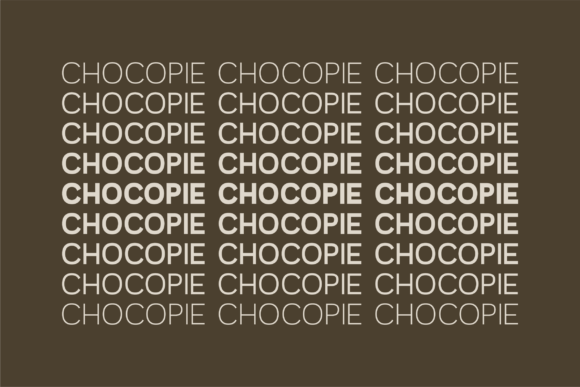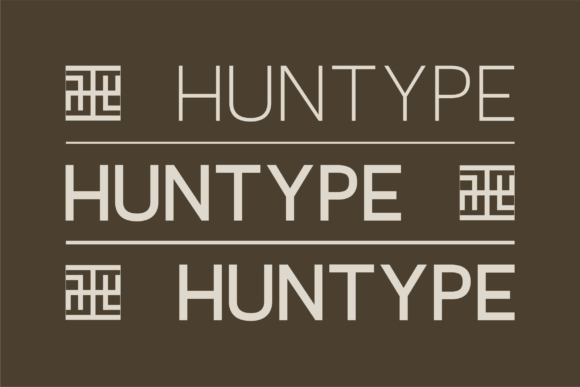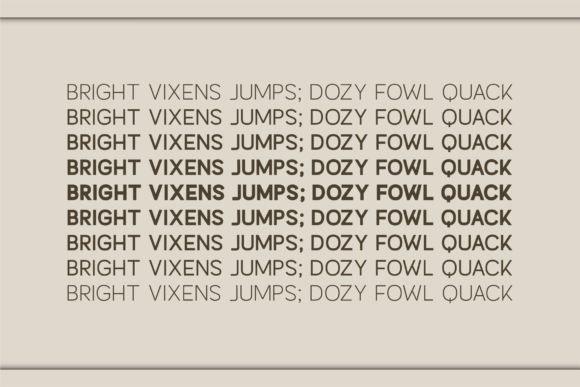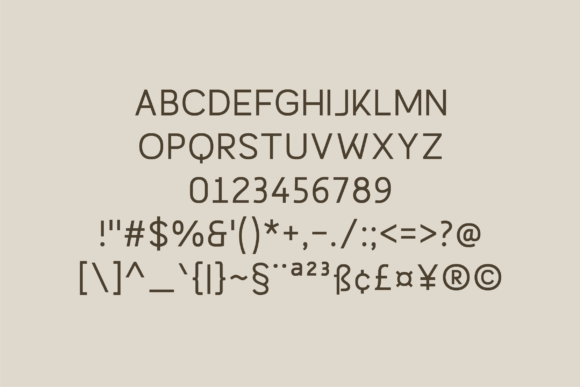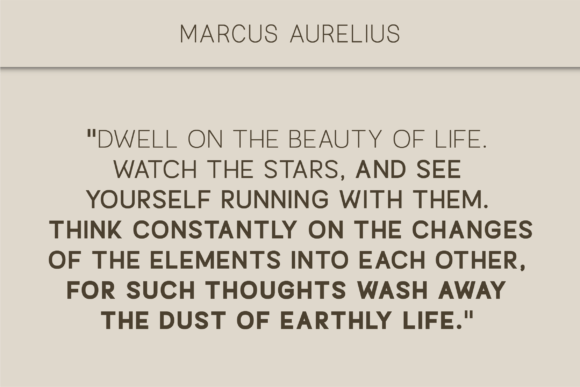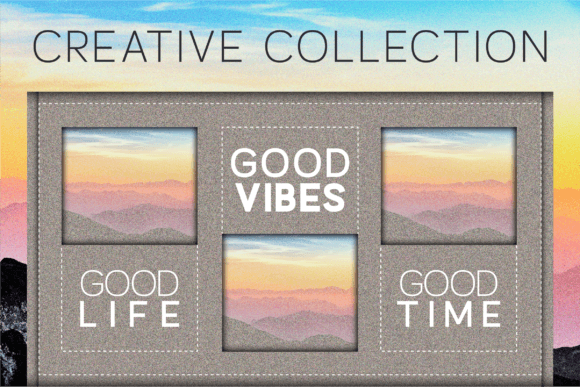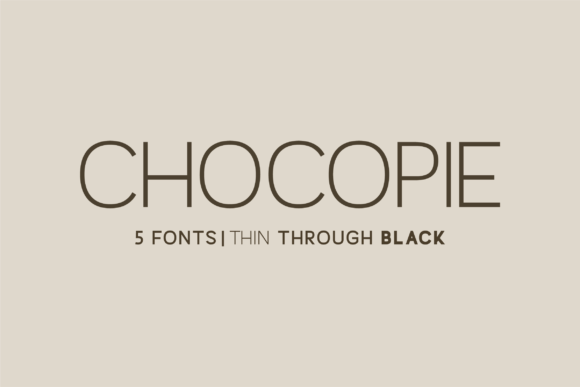
Introducing Chocopie Font: The Perfect Blend of Style and Versatility
In the world of typography, fonts play a crucial role in shaping the visual identity of a brand or design. With numerous font options available, finding the perfect one that balances style, readability, and versatility can be a daunting task. However, if you’re looking for a font that ticks all these boxes, look no further than Chocopie Font. With its smooth and clean lines, and just a touch of contrast, Chocopie works beautifully for logos, branding, and web headings.
What is Chocopie Font?
Chocopie Font is a modern, sans-serif font designed to provide a clean and elegant look to your designs. Its smooth lines and subtle contrast make it an ideal choice for a wide range of applications, from logos and branding to web headings and more. The font’s versatility and legibility make it perfect for designers and crafters looking to add a touch of sophistication to their work.
Key Features of Chocopie Font
So, what makes Chocopie Font stand out from the rest? Here are some of its key features:
- Smooth and Clean Lines: Chocopie Font boasts smooth and clean lines that give it a modern and sleek look.
- Subtle Contrast: The font’s subtle contrast adds depth and elegance to your designs, making it perfect for logos, branding, and web headings.
- Versatility: Chocopie Font is designed to be versatile, making it suitable for a wide range of applications, from digital designs to print materials.
- Legibility: The font’s clear and legible design ensures that your message is conveyed effectively, regardless of the medium.
Why Choose Chocopie Font?
With so many font options available, why should you choose Chocopie Font? Here are some compelling reasons:
- Unique Look: Chocopie Font offers a unique and distinctive look that sets it apart from other fonts.
- Ease of Use: The font is easy to use and works seamlessly with various design software.
- Time-Saving: With Chocopie Font, you can save time and effort, as it eliminates the need to spend hours searching for the perfect font.
- Professional Results: The font’s professional design ensures that your work looks polished and sophisticated.
How to Use Chocopie Font?
Using Chocopie Font is easy and straightforward. Here are some tips to get you started:
- Logos and Branding: Use Chocopie Font to create stunning logos and branding materials that make a lasting impression.
- Web Headings: The font’s clean design makes it perfect for web headings, adding a touch of elegance to your website.
- Print Materials: Chocopie Font works beautifully with print materials, such as brochures, flyers, and business cards.
- Digital Designs: The font is also suitable for digital designs, including social media graphics, presentations, and more.
Tips and Tricks for Working with Chocopie Font
To get the most out of Chocopie Font, here are some tips and tricks to keep in mind:
- Experiment with Sizes: Try different font sizes to find the perfect balance for your design.
- Play with Colors: Experiment with different colors to find the perfect match for your brand or design.
- Pair with Other Fonts: Chocopie Font works well with other fonts, so don’t be afraid to experiment with font combinations.
In conclusion, Chocopie Font is a versatile and elegant font that is perfect for designers and crafters looking to add a touch of sophistication to their work. With its smooth and clean lines, subtle contrast, and legibility, Chocopie Font works beautifully for logos, branding, web headings, and more. Whether you’re a seasoned designer or just starting out, Chocopie Font is an excellent choice for any design project.